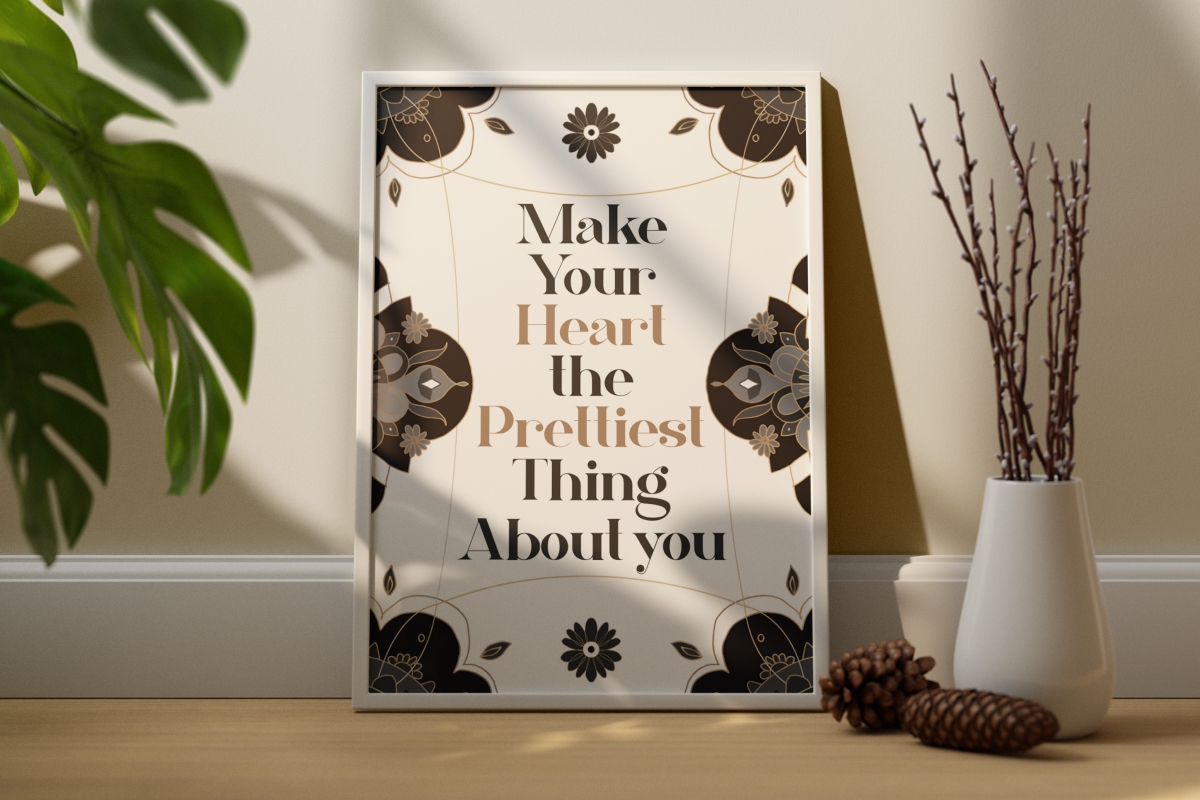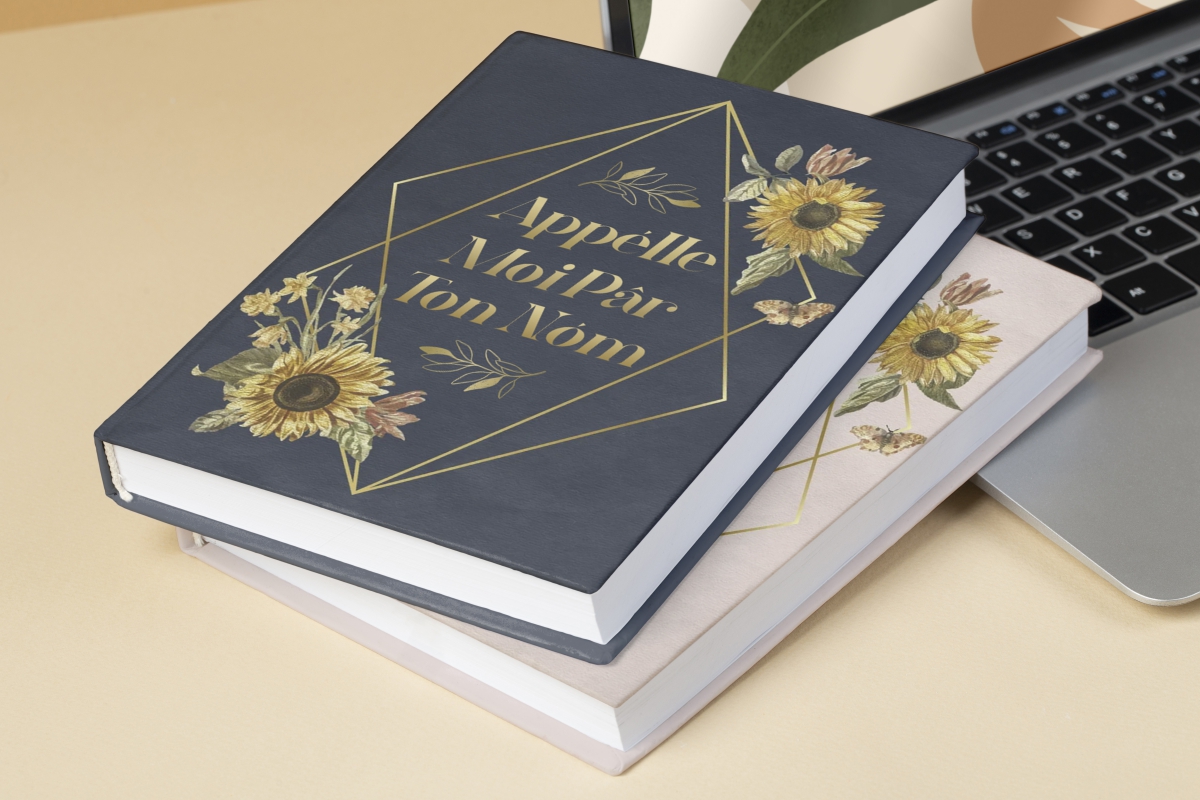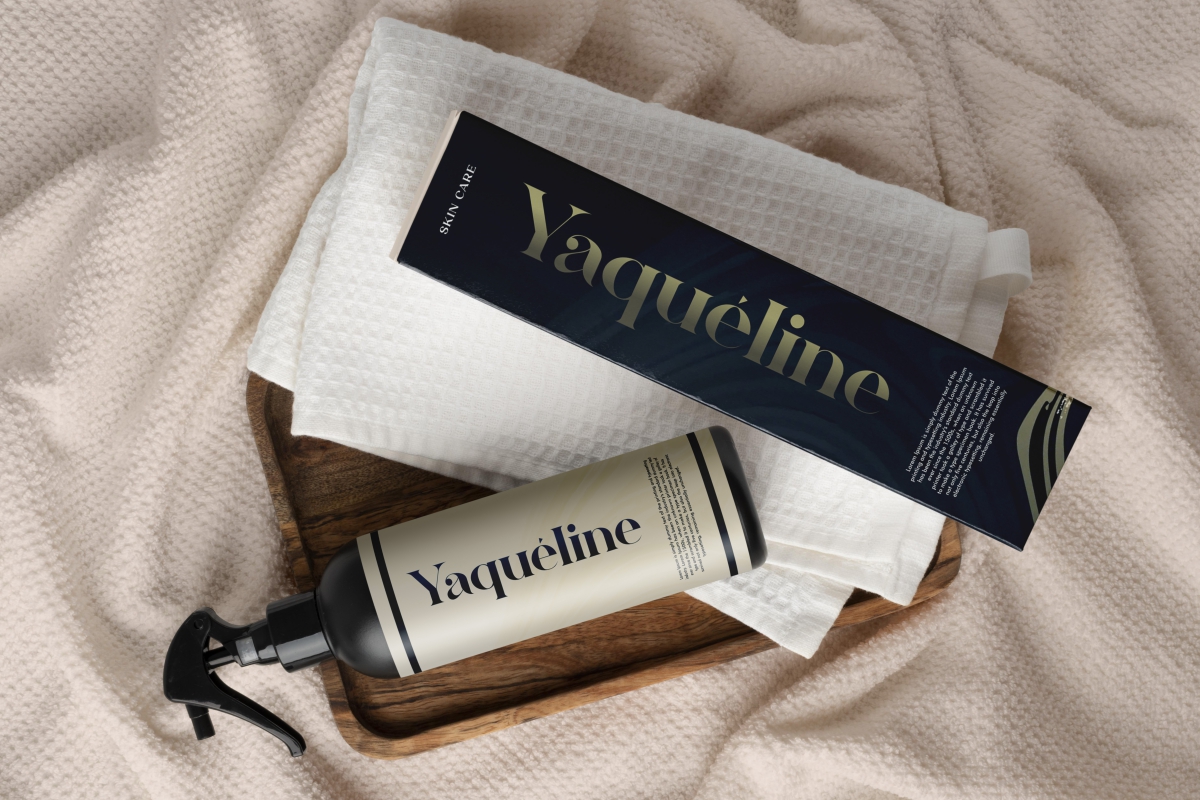
Bluefine Font
Bluefine Serif Font
This is a modern serif font that comes in two styles, regular and italic created by CalligraphyFonts. This font is suitable for any industry like, apparel, boutique, cosmetic, craft, fashion, publishing, restaurant, spa, writer, etc.